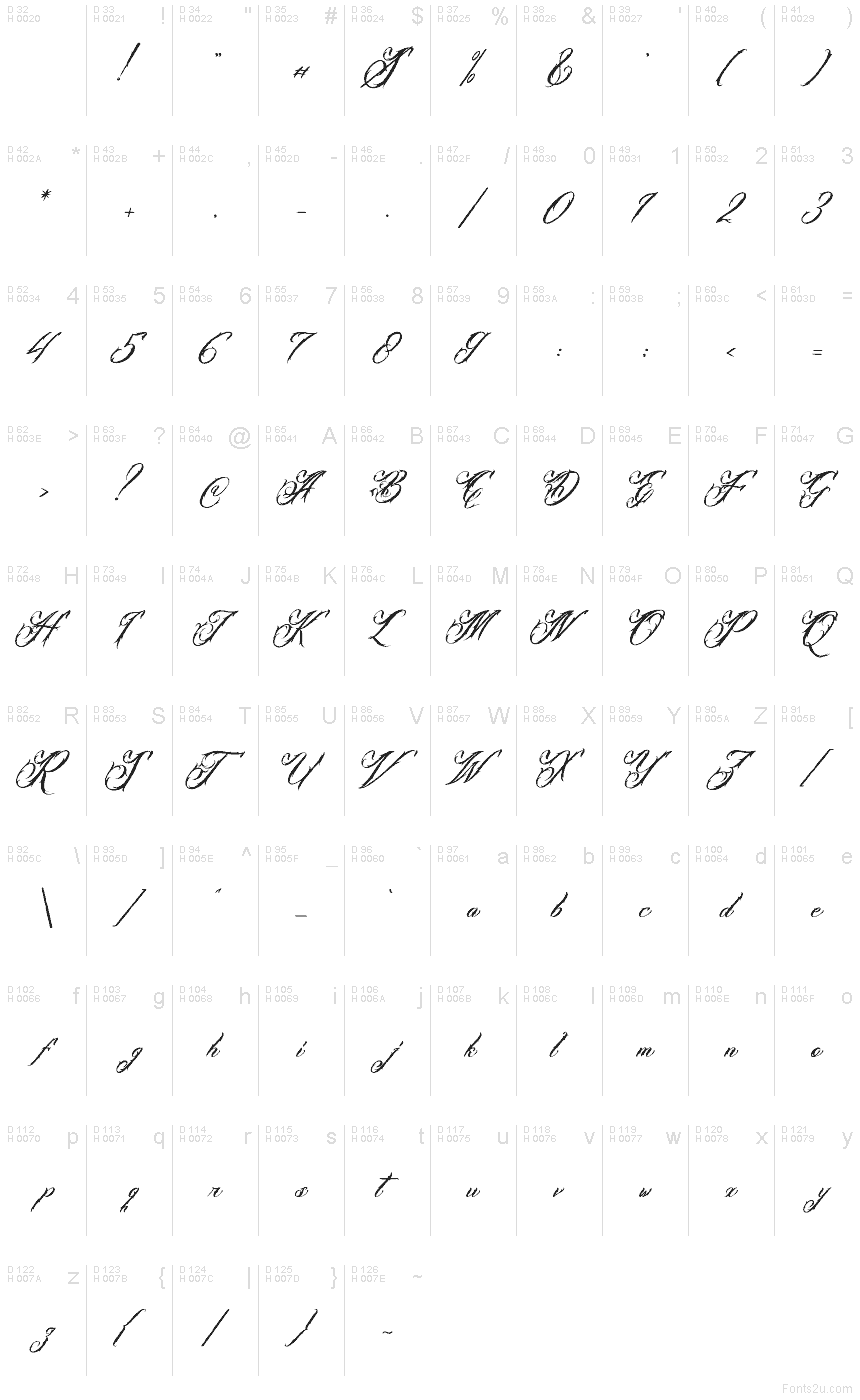
Misthycal Italic
Misthycal Italic font by Denustudios is a free brush font that channels classic tattoo script with a dark, romantic twist. Long, sweeping strokes curl into thorn-like spikes, while the inky, slightly rough texture keeps it feeling hand-drawn rather than polished. The Misthycal typeface leans dramatically forward, giving words a sense of motion, drama, and whispered secrets across the page or skin.
Using Misthycal Italic, you can bring that bold tattoo aesthetic to logos, band or event posters, apparel graphics, book covers, product packaging, and moody invitations. This free font shines when set large, letting the curls and hooks breathe; pair it with a clean, narrow sans-serif for supporting text to keep layouts legible and striking.